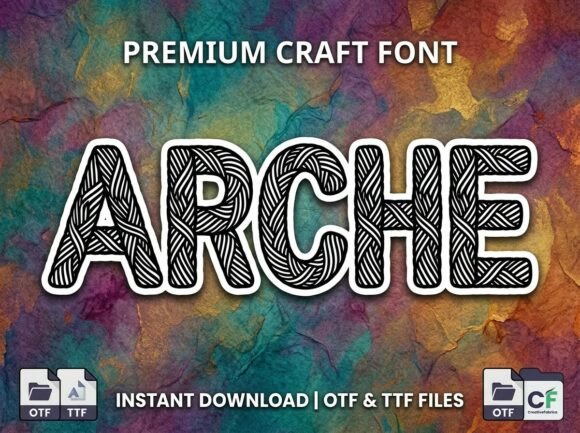
Introducing Arche Font: Where Tradition Meets Modern Design
In the world of typography, few fonts manage to capture the essence of both tradition and modernity. However, Arche Font stands out as a unique exception, blending the tactile, hand-crafted feel of historical designs with the sleekness of modern aesthetics. This display typeface is not just a font; it’s an experience, evoking the soul of ancient craftsmanship while resonating with contemporary design sensibilities.
The Unique Character of Arche Font
Arche Font is distinguished by its bold, sans-serif letterforms, which are uniquely characterized by an intricate, hand-drawn “woven” internal texture. This texture mimics the look of traditional textiles and basketry, giving the font a distinctive, organic feel that is both eye-catching and deeply rooted in history. The internal texture of Arche Font is not merely decorative; it adds a layer of depth and tactility to the letters, making them seem almost three-dimensional.
Bridging Ancient Craftsmanship with Retro Aesthetics
Arche Font successfully bridges the gap between ancient craftsmanship and retro 70s aesthetics. Its design pays homage to the meticulous handiwork of traditional artisans while incorporating a modern boldness that recalls the graphic design of the 1970s. This blend of old and new makes Arche Font incredibly versatile, suitable for a wide range of applications where a touch of authenticity and artistry is desired.
Applications of Arche Font
The unique characteristics of Arche Font make it the premier choice for several specific uses:
- Independent Artisanal Home Decor Branding: For brands that value handcrafted quality and heritage, Arche Font offers a typographic solution that perfectly complements their products and ethos.
- Organic Textile Labels: Arche Font’s woven texture and tactile feel make it an ideal match for labels and branding materials in the organic textile industry, where natural materials and craftsmanship are emphasized.
- Heritage Museum Exhibits: Museums looking to convey a sense of history and authenticity in their exhibits will find Arche Font to be a valuable asset, as it evokes a sense of timelessness and tradition.
- High-Impact Social Media Headers: For social media content that aims to stand out with an authentic and artful vibe, Arche Font can add a distinctive touch, making headers and titles more engaging and memorable.
Why Choose Arche Font?
Choosing Arche Font for your design project means opting for a typeface that is not just visually striking but also rich in character and history. Its unique blend of traditional and modern elements allows designers and crafters to create works that are both timeless and contemporary. Here are a few reasons why Arche Font stands out:
- Unique Aesthetic: The woven internal texture of Arche Font offers a look that is hard to find in modern typography, making it a standout choice for projects that require something distinctive.
- Versatility: Despite its unique character, Arche Font is surprisingly versatile, suitable for a range of applications from digital media to print.
- Emotional Connection: By evoking a sense of hand-crafted history, Arche Font can help create an emotional connection with the audience, something that is increasingly valuable in a digitally dominated world.
Arche Font is more than just a typeface; it’s a design statement that speaks to those who appreciate the beauty of traditional craftsmanship and the boldness of modern design. Whether you’re a designer looking for a unique typographic solution, a crafter seeking to brand your handmade products, or a curator aiming to convey the heritage of your museum, Arche Font offers a compelling choice. By interlacing tradition with modern design, Arche Font enables creators to produce works that are not only visually stunning but also rich in narrative and emotional depth.